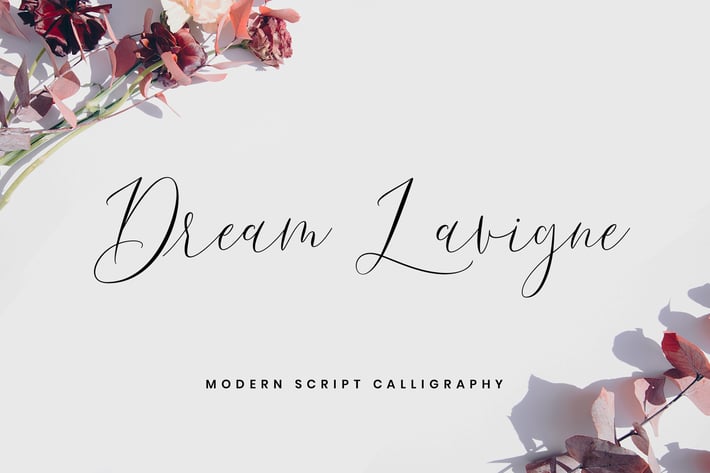
Dream Lavigne Modern Calligraphy Fonts
Introducing our new product Dream Lavigne Modern Calligraphy Fonts. It is elegant, feminine, modern and friendly. Dream Lavigne is perfect for fashion, e-commerce brands, interior brand, or any business.